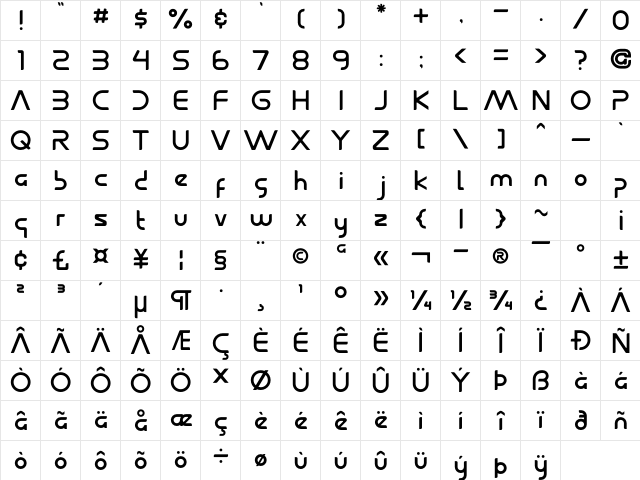
Betelguesse Regular
| Designer | Chrisna Tri Hartadi |
Design Context for Betelguesse Typeface
Betelguesse takes a measured approach to typography — its balanced proportions and neutral character make it a reliable workhorse for both digital and print work.